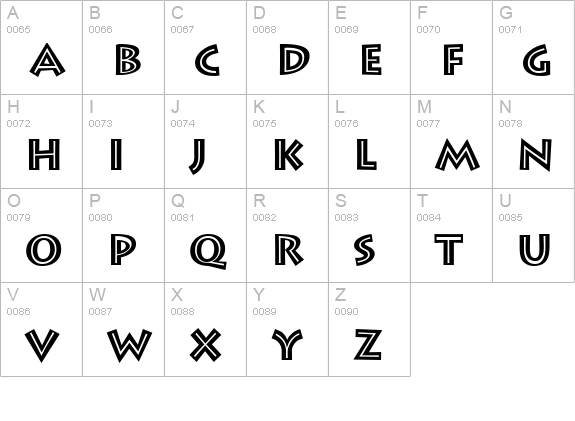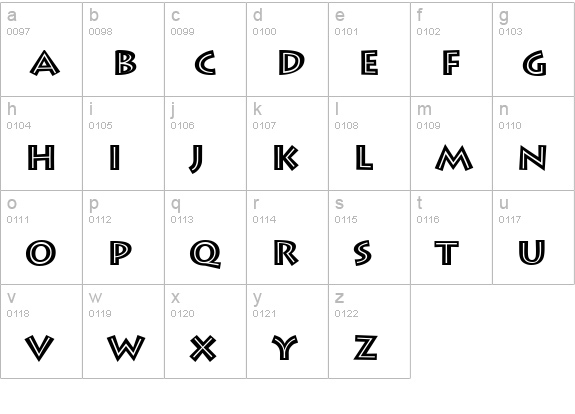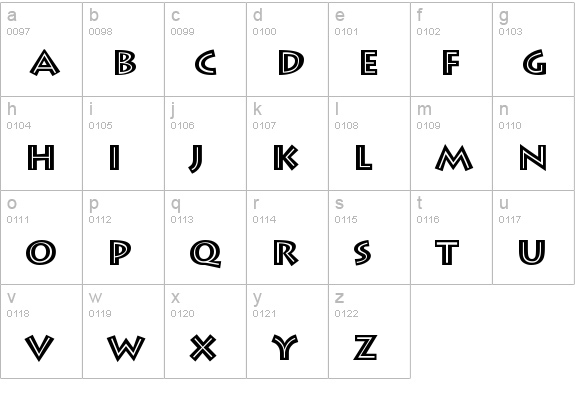
LeeToscaniniInlineSH Font Details
LeeToscaniniInlineSH is a visually stunning font that effortlessly captures the essence of elegance and sophistication. With its intricate detailing and delicate curves, this font exudes a timeless beauty that is sure to captivate any audience. Created with precision and passion, LeeToscaniniInlineSH offers a unique blend of classic and modern design elements, making it the perfect choice for a wide range of creative projects. Whether you're designing a luxurious invitation, a high-end logo, or a refined editorial piece, this font will add a touch of refinement and finesse to your work. What sets LeeToscaniniInlineSH apart is not just its exquisite design, but also its accessibility. It is freely available to download at FontsMarket.com, allowing designers and creatives to effortlessly incorporate this font into their projects without any hassle. With its well-defined strokes and balanced letterforms, LeeToscaniniInlineSH ensures excellent legibility and readability, even when used at smaller sizes. The font's versatility is further enhanced by its ability to seamlessly adapt to both print and digital mediums, guaranteeing a consistent and polished look across various platforms. Whether you're a professional designer or someone with a passion for typography, LeeToscaniniInlineSH is a must-have in your font collection. Its timeless beauty and free availability make it an invaluable resource for creating designs that are both visually striking and sophisticated. Elevate your work to new heights with LeeToscaniniInlineSH font and experience the power of timeless design.